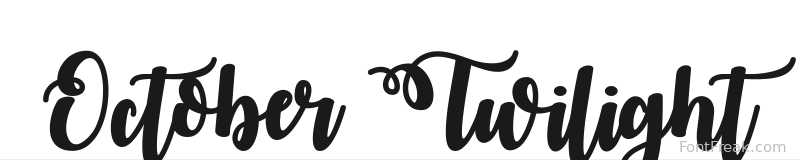
October Twilight
About October Twilight
October Twilight, designed by Misti Hammers, is a captivating script font that exudes elegance and charm. With its fluid strokes and artistic flair, this font features a medium stroke weight that balances readability with decorative appeal. The contrast in its letterforms creates a dynamic visual experience, while the generous spacing ensures clarity, making it suitable for various applications. The whimsical curves and flourishes in the characters add a touch of sophistication, making October Twilight a standout choice for those seeking a unique typographic style.
This font is ideal for a range of creative projects. Wedding invitations benefit from its romantic and graceful appearance, making it a popular choice for couples looking to set an enchanting tone. Additionally, October Twilight can elevate movie posters with its dramatic flair, drawing attention and creating intrigue. Restaurant menus also stand to gain from its stylish presentation, offering diners a glimpse of the culinary experience awaiting them. Small business branding can find a perfect match in this font, as it conveys a sense of warmth and personality that resonates with customers. Content creators, whether crafting social media graphics or designing websites, will appreciate the font’s versatility and eye-catching appeal.
The target audience for October Twilight includes graphic designers, small business owners, and content creators who seek to make a memorable impression. This font stands out for its combination of elegance and approachability, allowing it to adapt seamlessly to various contexts while maintaining its artistic integrity. With its free download option, October Twilight offers an accessible way for creatives to enhance their projects, ensuring that it remains a beloved choice for those in search of a distinctive script font.